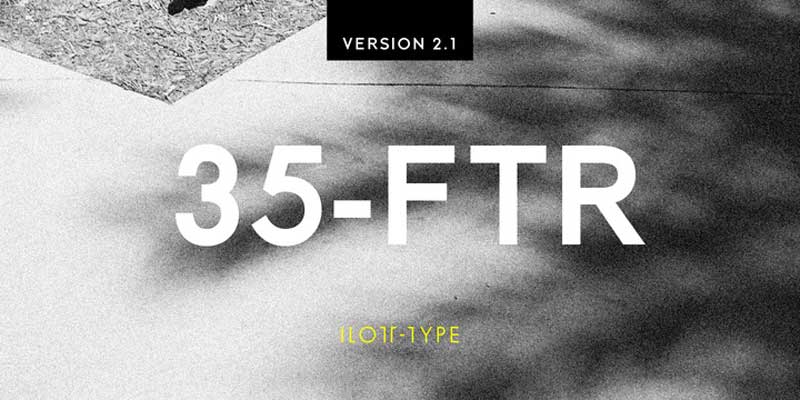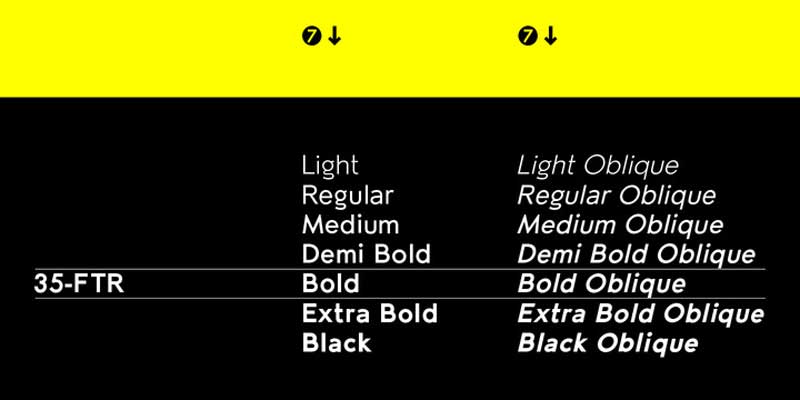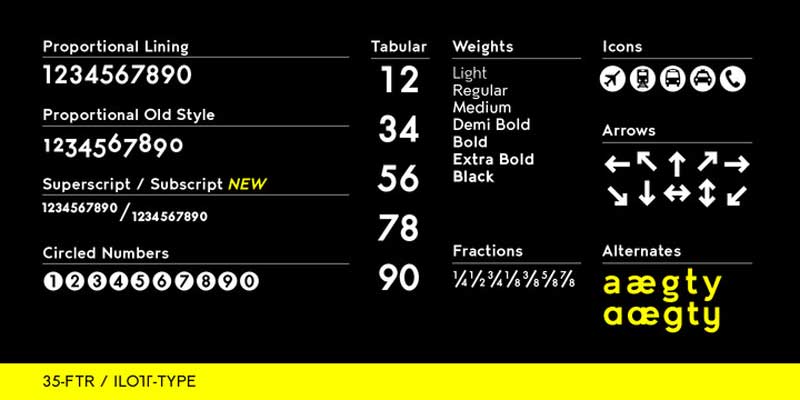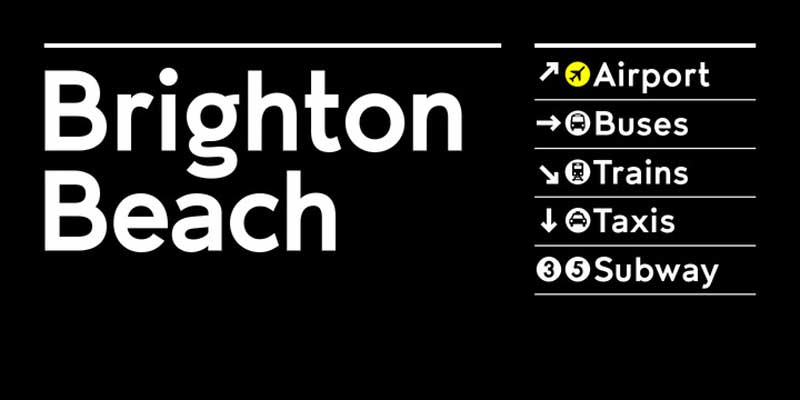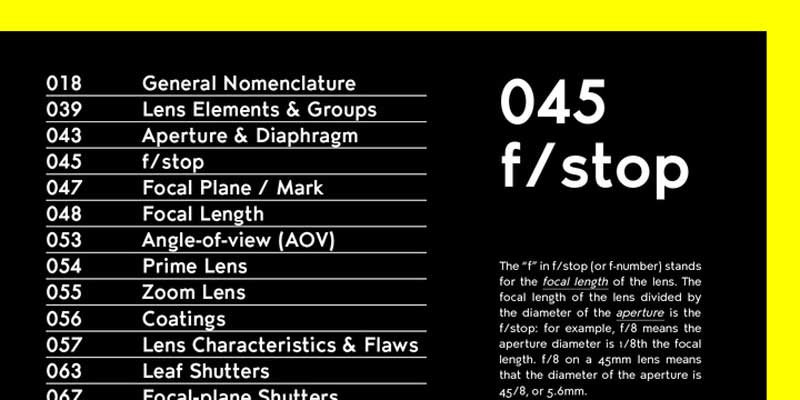
35-FTR Font Family
35-FTR was custom drawn specifically for the book Analogue Photography which required the timeless elegance of Futura and the compact utilitarian typesetting of Helvetica. It combines the best of both with the foundation of a geometric sans but the proportions and rhythm of the Swiss classic.
The result is a versatile font that bridges the gap between information design and high-end sophistication. 35-FTR can effortlessly traverse the spectrum of friendly and approachable to aspirational exclusivity.
This functional elegance excels in the bolder weights and is perfect for setting display and readable body copy.
Version 2.1 includes refinements to the two-story “a” and “g”, new superior and inferior figures and improved kerning for German text. Original features: 7 weights with obliques, open type features, European characters, symbols, transit icons, circled figures, old-style figures, tabular figures, proportional figures fractions, arrows.